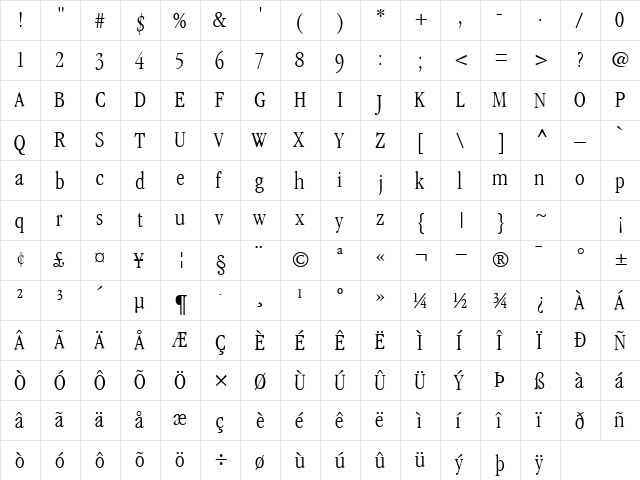
GaramondLightCondSSK Regular Font Preview
Design Context for GaramondLightCondSSK Typeface
GaramondLightCondSSK takes a measured approach to typography — its balanced proportions and neutral character make it a reliable workhorse for both digital and print work. The delicate stroke weight brings airiness and refinement to layouts. The condensed width makes it efficient for tight spaces without sacrificing legibility.